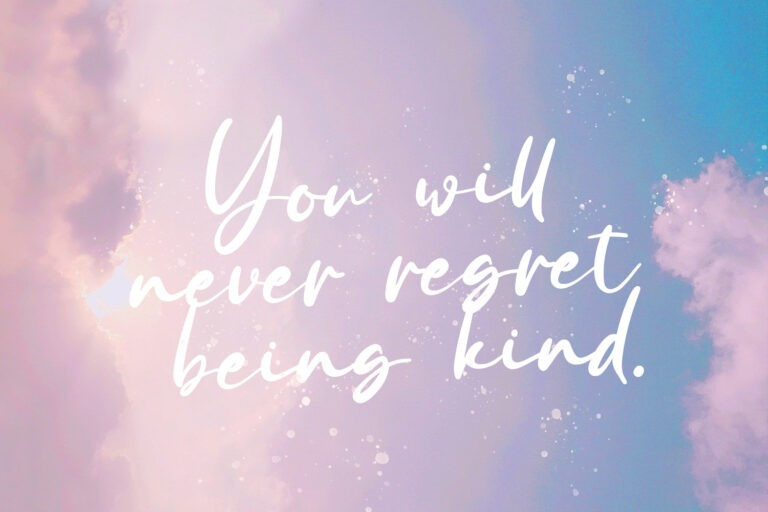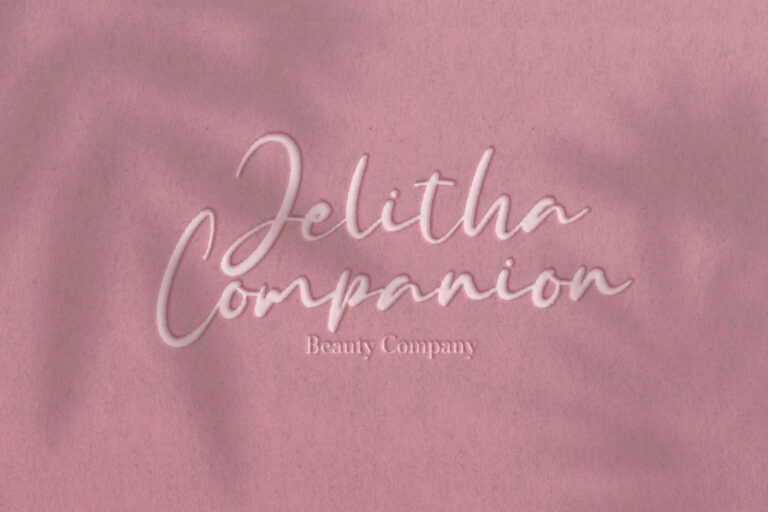
Beatrice Script Font
Beatrice is a standout bold handwritten font with a touch of vintage, retro influences. This typeface is a perfect match for logos, headlines, magazines, books, greeting cards, makeup products, and more!